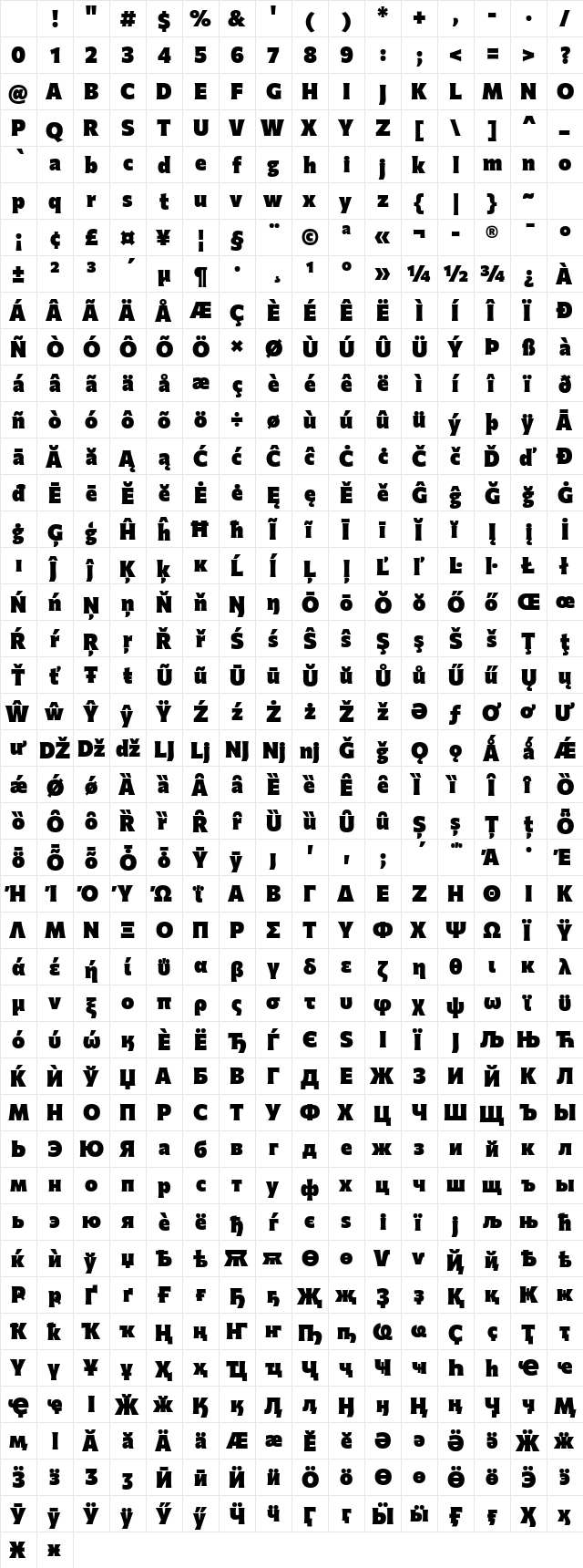
Complete Commissioner Flair Black Regular glyph index. Displaying only characters natively supported by Commissioner Flair Black Regular font.
Commissioner Flair Black is a composed and adaptable typeface that performs quietly and consistently across a wide range of design contexts.